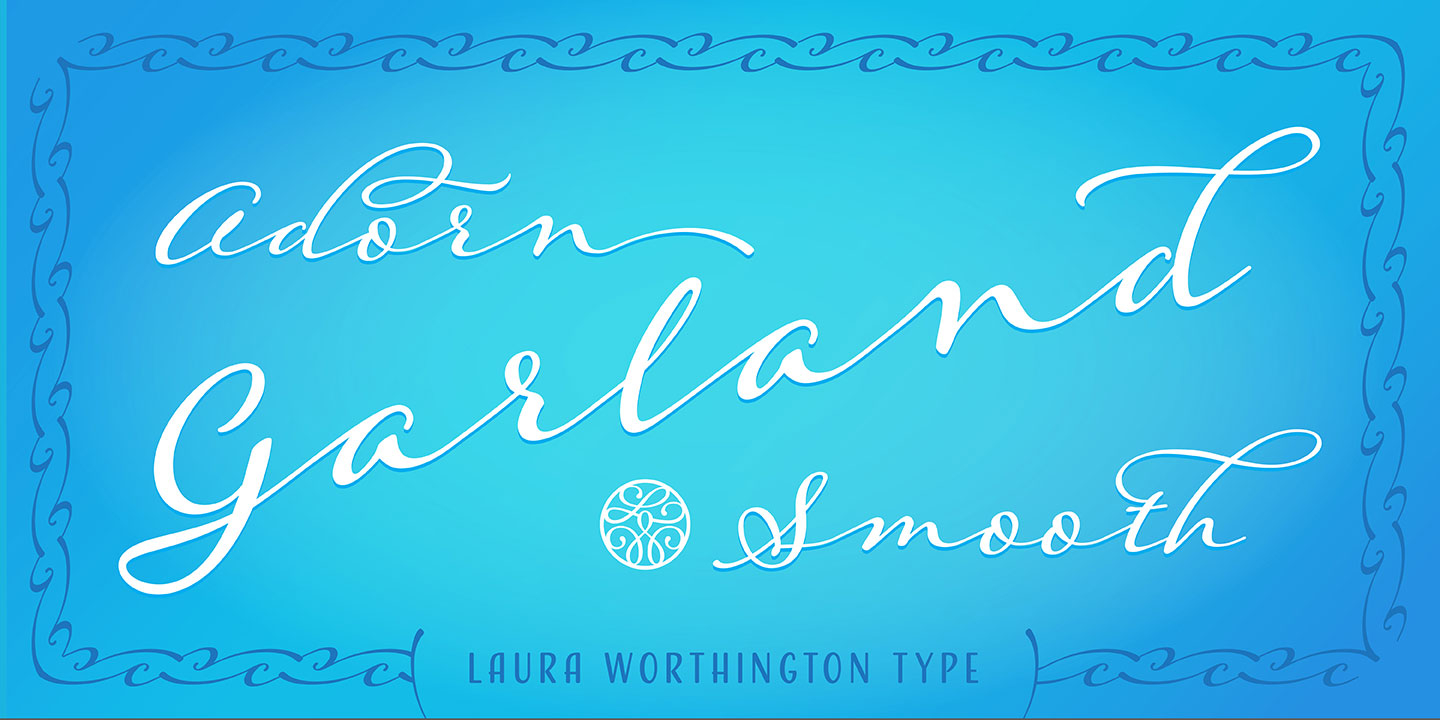
Designed by Laura Worthington, Adorn Garland Smooth is a script and modern calligraphy font published by Laura Worthington.
Adorn Garland Smooth is a script face that runs along a different, and somewhat “vintage” direction.
Rather than deriving its strength from a heavy skeleton or structure, it uses its sense of contrast, its light touch upon the page, and its elongation to provide a visual break – it can function as a long string, rule, or dividing line. With 166 swashes.